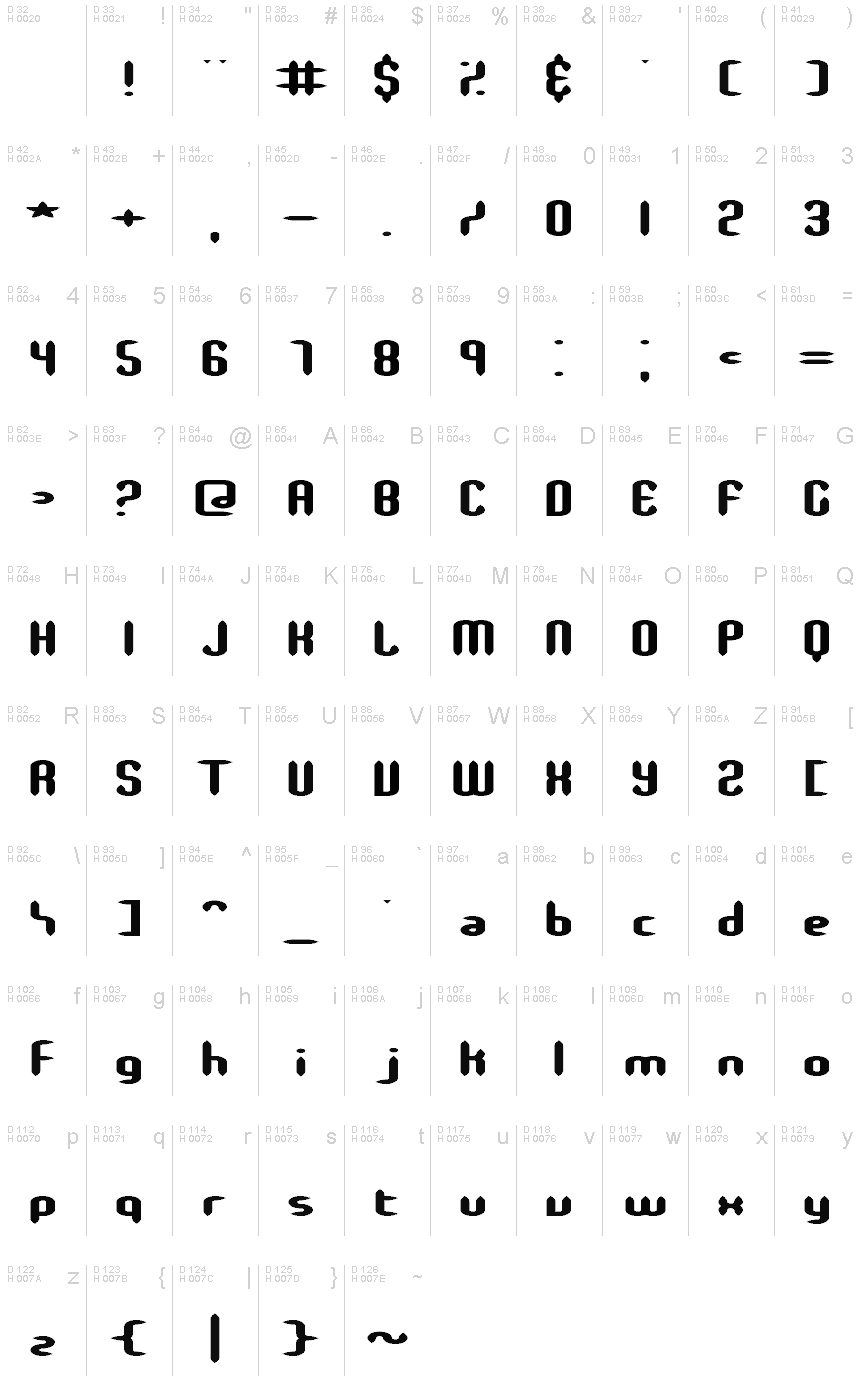
Slender Stubby BRK
Slender Stubby BRK emerges from the creative studios of ÆNIGMA FONTS, striking a harmonious balance between gothic inspiration and modern flair. The semi-bold weight of this font imbues it with a presence that is both assertive and inviting—a nod to its gothic roots while embracing a contemporary aesthetic.
The distinct character shapes exhibit a certain robustness, suggestive of architectural strength, which makes Slender Stubby BRK an excellent choice for projects requiring visual impact with an edge of sophistication. This font's modern style, coupled with its semi-bold stance, renders it highly versatile—ideal for everything from eye-catching headlines to stylish branding or expressive editorial design.
In essence, Slender Stubby BRK is not just another addition to the Slender Stubby family; it is a typeface that offers designers unlimited potential to craft messages that stand out while maintaining elegance and readability. Its unique characteristics ensure that any work utilizing this font will capture attention and convey information with remarkable style.
The distinct character shapes exhibit a certain robustness, suggestive of architectural strength, which makes Slender Stubby BRK an excellent choice for projects requiring visual impact with an edge of sophistication. This font's modern style, coupled with its semi-bold stance, renders it highly versatile—ideal for everything from eye-catching headlines to stylish branding or expressive editorial design.
In essence, Slender Stubby BRK is not just another addition to the Slender Stubby family; it is a typeface that offers designers unlimited potential to craft messages that stand out while maintaining elegance and readability. Its unique characteristics ensure that any work utilizing this font will capture attention and convey information with remarkable style.